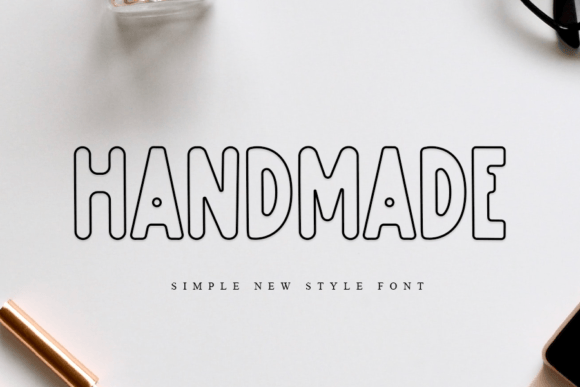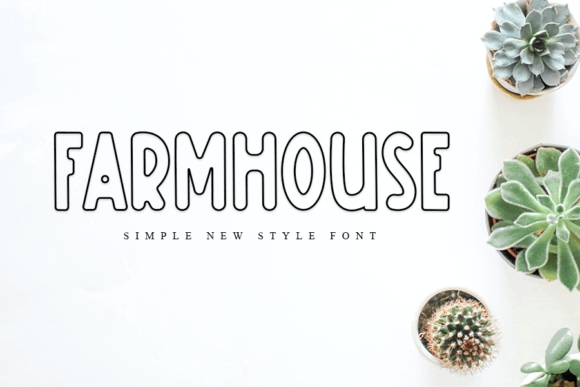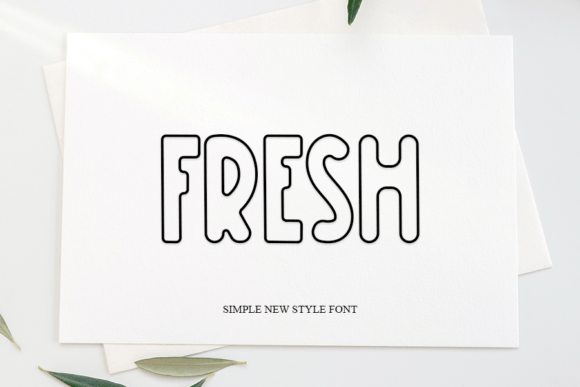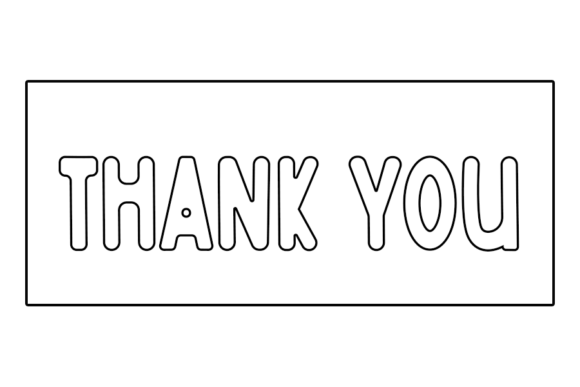
Introduction to Shower Font
Have you ever been working on a creative project, pouring your heart and soul into it, and suddenly, you hit a roadblock? You’re struggling to find the perfect font to elevate your design and make it truly stand out. That’s where the Shower Font comes in – a cool and modern display font that’s about to revolutionize your design game.
Whether you’re a seasoned designer or a crafty enthusiast, the Shower Font is a valuable resource that’s sure to impress. Its high-quality design makes it a great addition to any creative project, from digital presentations to greeting cards. Plus, it’s available for free download, making it an accessible design resource for anyone looking to take their projects to the next level.
With its transparent background and versatility, the Shower Font is a must-have for any designer looking to add a touch of modern flair to their work. In this article, we’ll dive deeper into the world of Shower Font and explore its many uses and benefits.
Shower Font
- High-quality design resource with a unique, modern aesthetic, perfect for creative projects.
- Includes a transparent background, allowing for easy integration into various design environments.
- Features a clean, sans-serif design with a large x-height, making it highly legible at various font sizes.
- Available in a single weight, with a resolution of 300 DPI, ensuring crisp and clear text display.
Honest Review: Shower Font
I recently had the chance to work with Shower Font, and I’m excited to share my thoughts on this design resource. From the moment I downloaded it, I was impressed by its high quality and versatility. The font is perfect for any creative project, whether you’re designing a logo, brochure, or website.
What works well: ✨ The font is incredibly easy to use, with a transparent background that makes it simple to overlay on any image or design element. The font also comes in a range of styles and sizes, making it perfect for any creative project. I particularly liked the way it looked on a white background, really making the text pop.
What doesn’t work so well: ⚠️ While the font is generally high quality, I did notice that it can be a bit pixelated when scaled up to larger sizes. This isn’t a deal-breaker, but it’s something to keep in mind when using the font in a design.
Overall, I was really impressed with Shower Font. It’s a great free download that’s perfect for any creative project. I would definitely recommend it to designers and non-designers alike.
- Perfect for logos, brochures, and websites
- High-quality design with transparent background
- Range of styles and sizes available
Shower Font
Shower Font is a high-quality, unique design resource ideal for creative projects. This font is available for free download and features a transparent background, making it versatile for various applications.
Getting the Most Out of Shower Font
For optimal results, use Shower Font in combination with other design elements, such as graphics and textures. Experiment with different font sizes, colors, and arrangements to create visually appealing designs.
Shower Font is suitable for a variety of projects, including: logo designs, social media graphics, posters, and branding materials. Its unique design and transparent background make it an excellent choice for creative projects requiring a touch of elegance and sophistication.